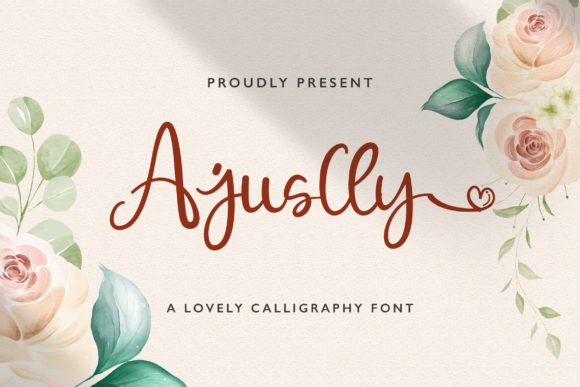
The Quest for the Perfect Handwritten Font: Discovering Ajuslly
I’ll never forget the time I was working on a wedding invitation project, and my client asked for a font that was ” elegant, yet playful, and totally unique.” I scoured the internet, tried countless fonts, but nothing seemed quite right. That was until I stumbled upon Ajuslly – an incredibly distinct, delicate, and timeless handwritten font that has since become a staple in my design toolkit.
A First Impression: What Makes Ajuslly Special
Ajuslly is more than just a pretty face; it’s a versatile font that can elevate a wide range of designs, from wedding invitations and thank you cards to quotes, greeting cards, logos, and business cards. Its unique charm lies in its varying baseline, smooth lines, gorgeous glyphs, and stunning alternates. Plus, it’s PUA encoded, making it easy to access all the glyphs and swashes you need.
So, what do I love about Ajuslly? Here are a few highlights:
- ✨ Delicate and elegant: Ajuslly has a sophisticated, handwritten feel that’s perfect for designs that need a touch of class.
- ✅ Easy to use: The font is PUA encoded, making it simple to access all the glyphs and swashes you need.
- 💫 Highly versatile: Ajuslly works beautifully on a wide range of designs, from wedding invitations to logos and business cards.
And, like any font, it’s not without its quirks:
- 🤔 Some characters may require manual kerning: Depending on the design, you may need to adjust the kerning to get the perfect look.
- ⚠️ Not suitable for body text: Ajuslly is best used for headlines, titles, and short paragraphs – it’s not ideal for longer blocks of text.
The Story Behind Ajuslly: Designer Inspiration
Ajuslly was designed with one goal in mind: to create a beautiful, elegant handwritten font that would add a touch of sophistication to any design. The designer, inspired by classic calligraphy and elegant handwriting, crafted Ajuslly to be a versatile font that would work beautifully on a wide range of designs.
| What is Ajuslly? | Ajuslly is a beautiful, elegant handwritten font perfect for designs that need a touch of sophistication. |
| Is Ajuslly PUA encoded? | Yes, Ajuslly is PUA encoded, making it easy to access all the glyphs and swashes you need. |
| Is Ajuslly suitable for body text? | No, Ajuslly is best used for headlines, titles, and short paragraphs – it’s not ideal for longer blocks of text. |